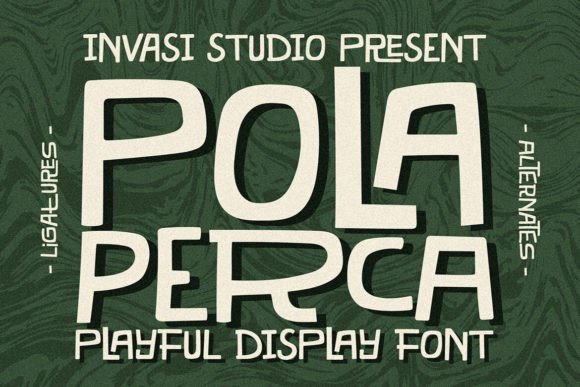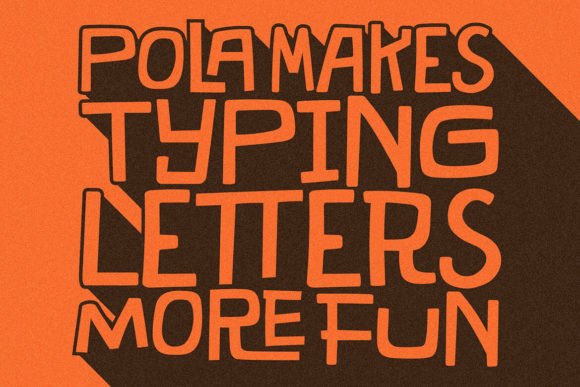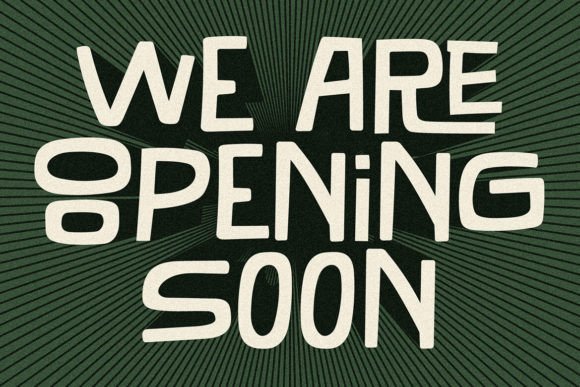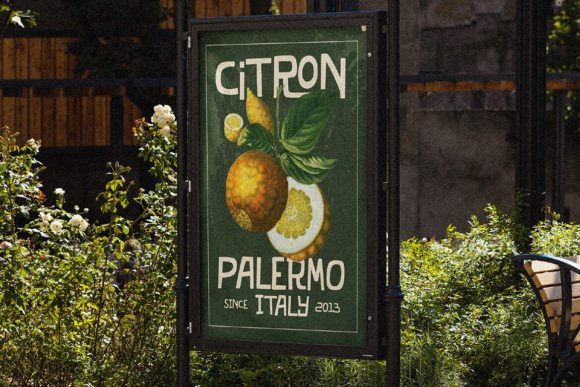
Pola Perca Font: A Playful Tiki Display Font for Creative Designs
About the Pola Perca Font
We are excited to introduce Pola Perca Font, a must-have typeface for any serious designer. Get ready to embark on a playful adventure with Pola Perca, the tiki-inspired display font that’s full of fun! Drawing inspiration from the ancient art form of tiki style, which celebrates the rich Polynesian culture, we’ve put our own twist on it, adding a playful and random baseline to the typeface. The result? A font that exudes a delightful and lighthearted look, guaranteed to make typing letters an absolute blast! But don’t let the fun and games fool you – Pola Perca is also highly legible and easy to read, making it the perfect choice for headlines, titles, packaging, logos, and any design element that needs to convey its message with clarity and style.
Pola Perca Font Usage Examples
Pola Perca Font Example